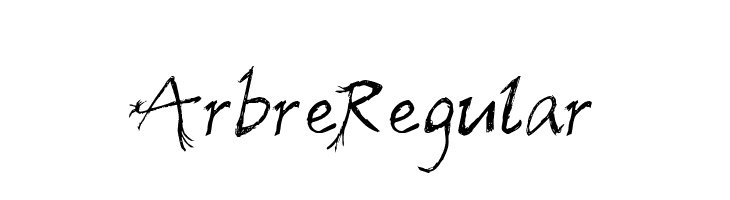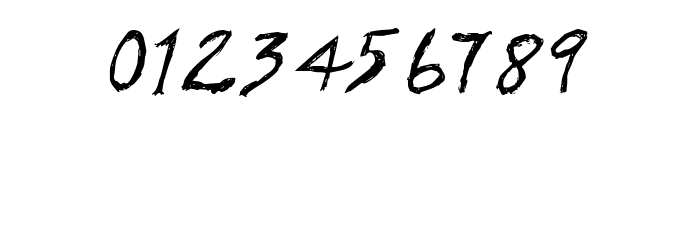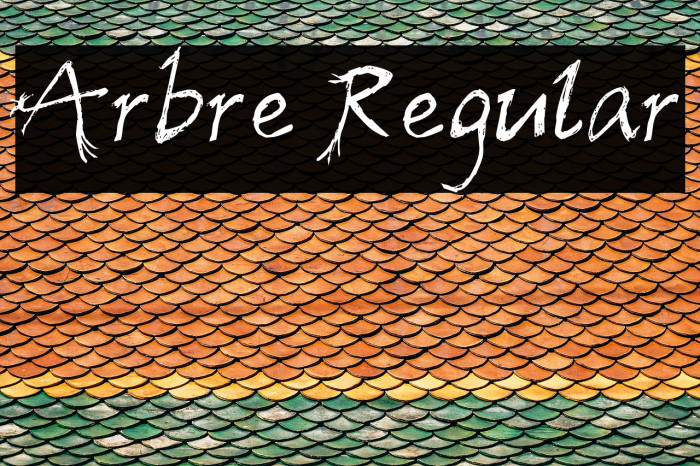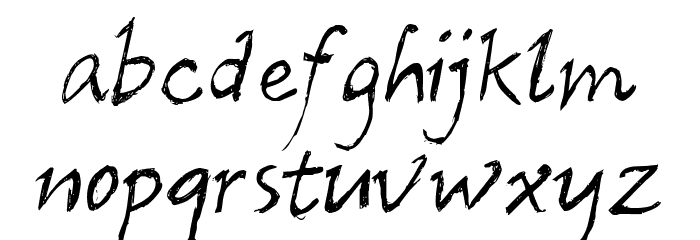
Arbre Regular Font
This font features a unique, organic design with characters that appear as if they are crafted from twigs or branches. The strokes are irregular and jagged, giving it a natural, rustic feel. The uppercase and lowercase letters maintain this theme, with each character displaying a distinct, hand-drawn quality. The numbers and special characters follow suit, contributing to the overall cohesive appearance. This font is perfect for projects that require a touch of nature or an earthy aesthetic.
A rustic, twig-like font with an organic, hand-drawn appearance.
• Proposed Projects: Ideal for nature-themed designs, eco-friendly branding, rustic wedding invitations, and artistic projects requiring a natural touch.
• Category: Decorative/Display
• Contrast: Medium
• Overall Style: Decorative
• Use Case: Logos, Headlines, Artistic projects